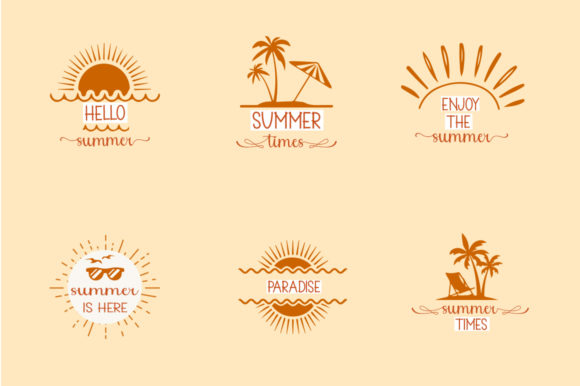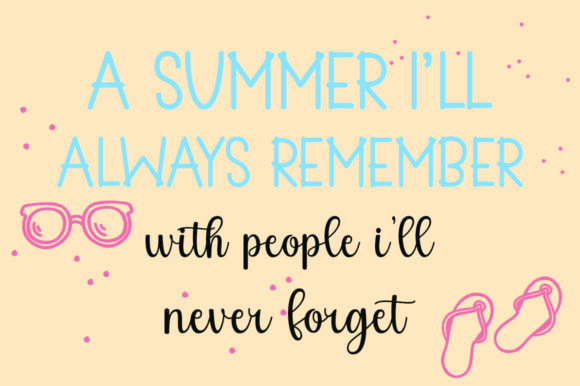
Summer Beach Font
db-ku.com - Script & Handwritten -- Summer Beach is lovely duo font (sans serif and script). This versatile script font has a wide spectrum of applications ranging from greeting cards to headlines and is guaranteed to add a fun feel to your next project. Summer Beach is PUA encoded which means you can access all of the glyphs and swashes with ease!